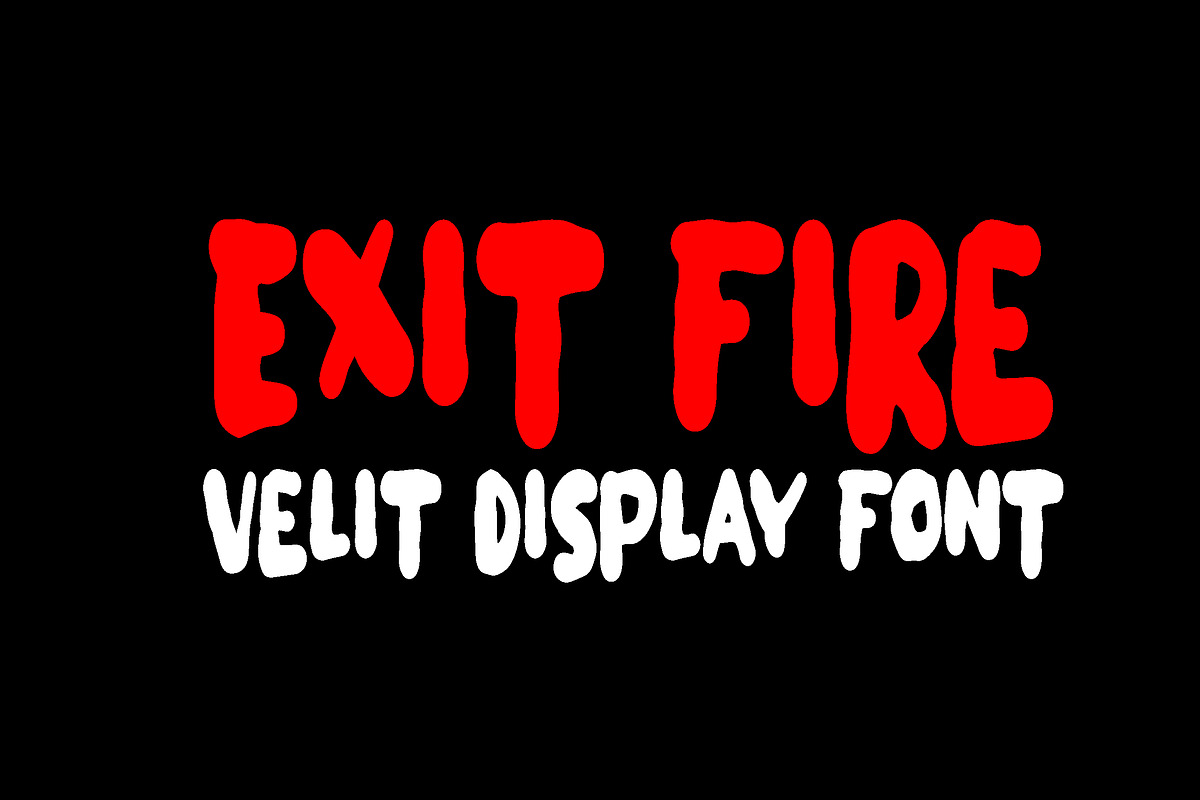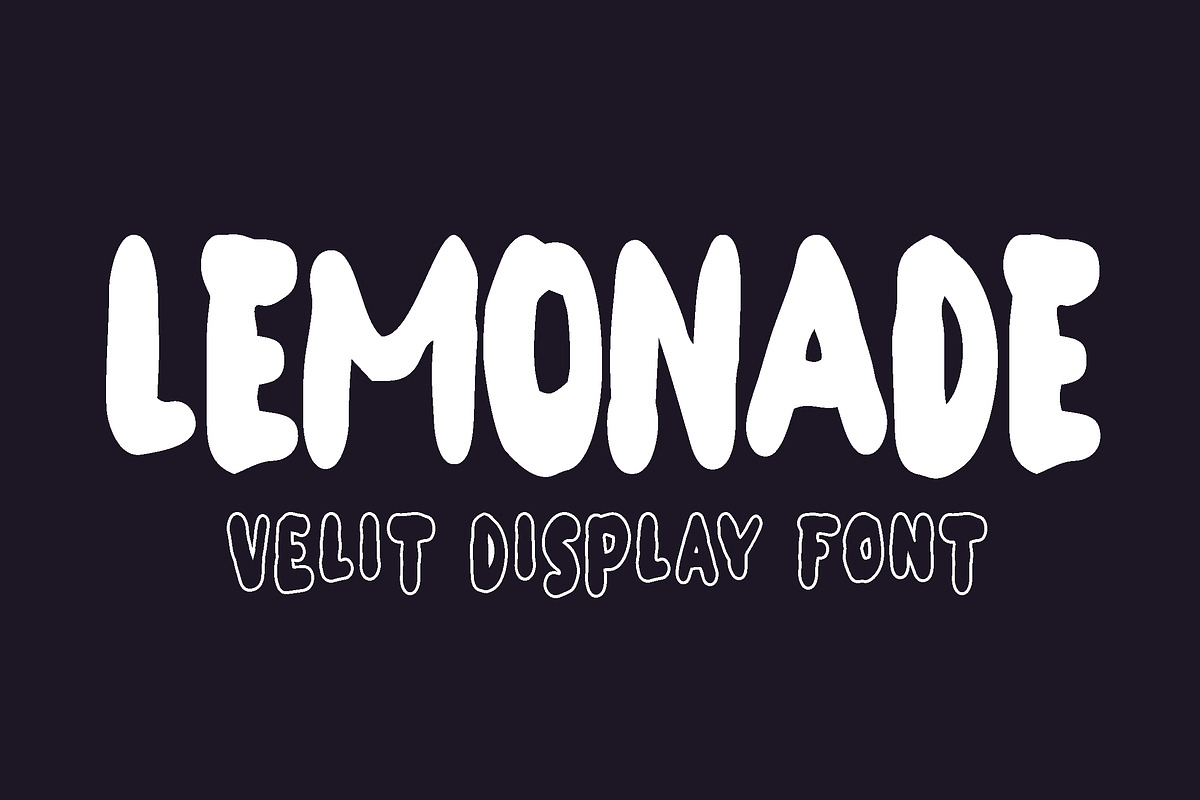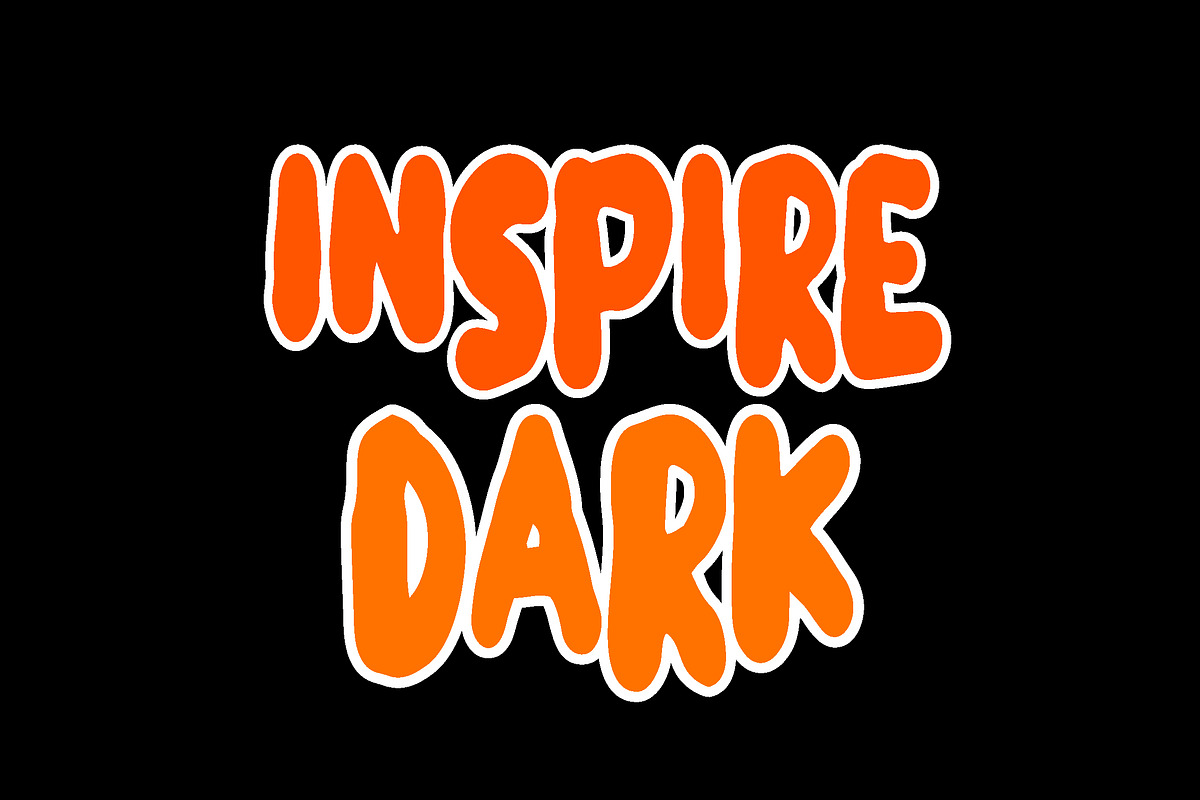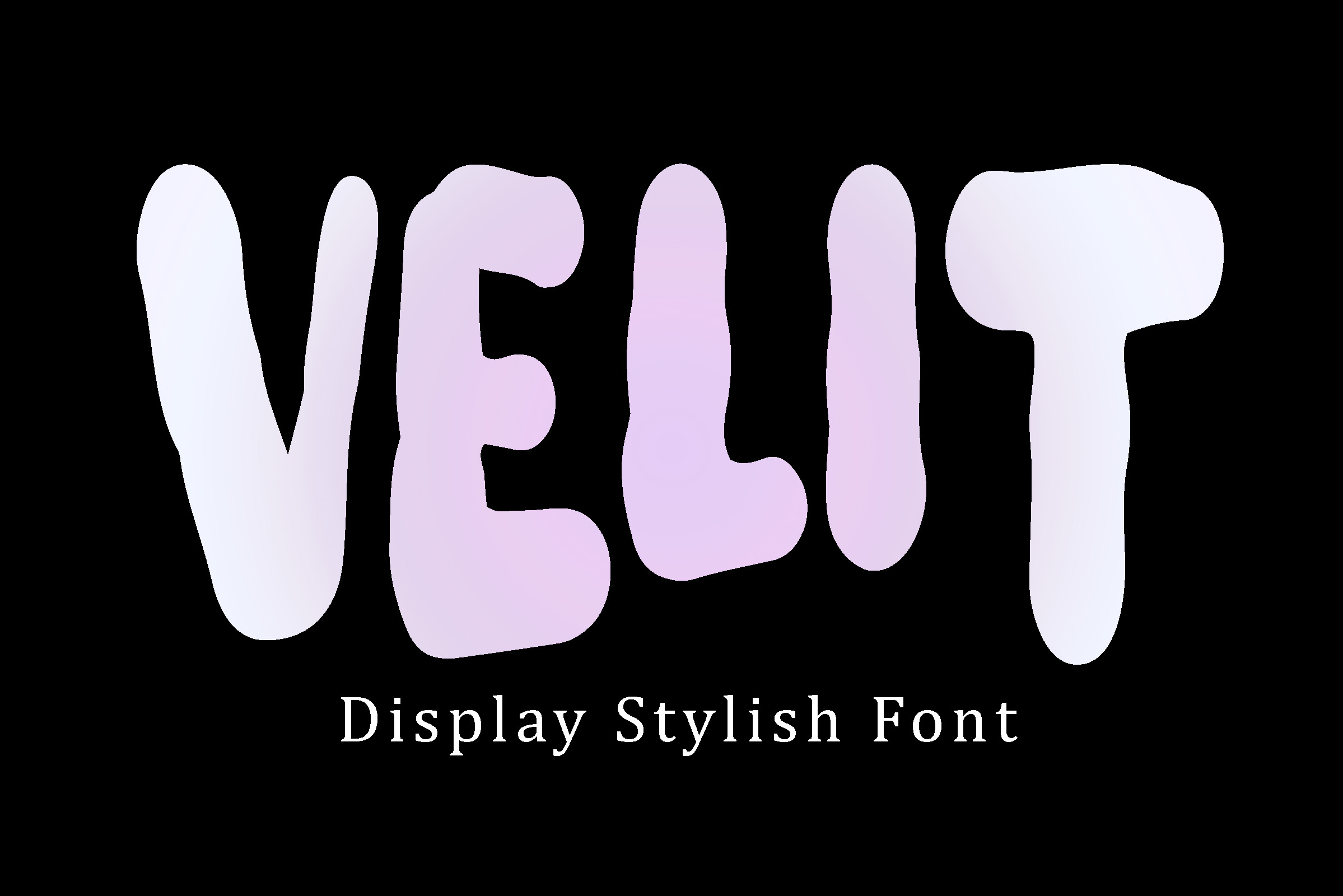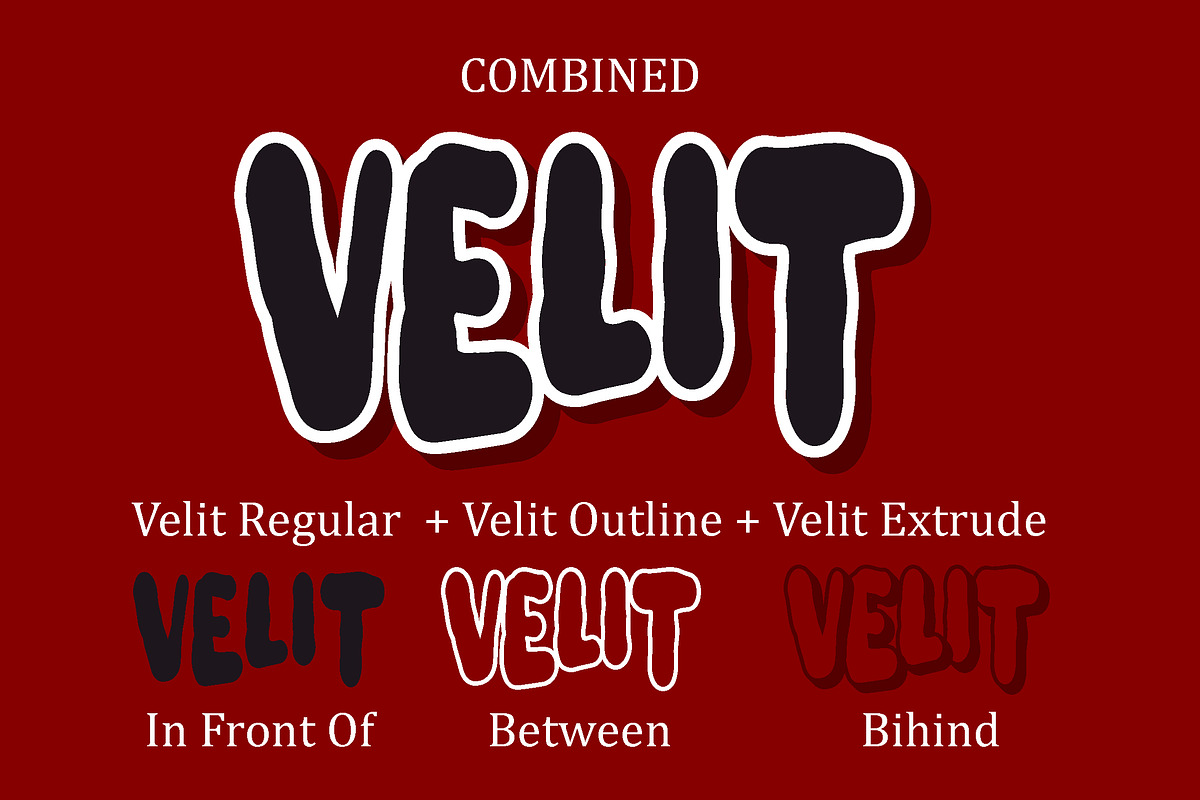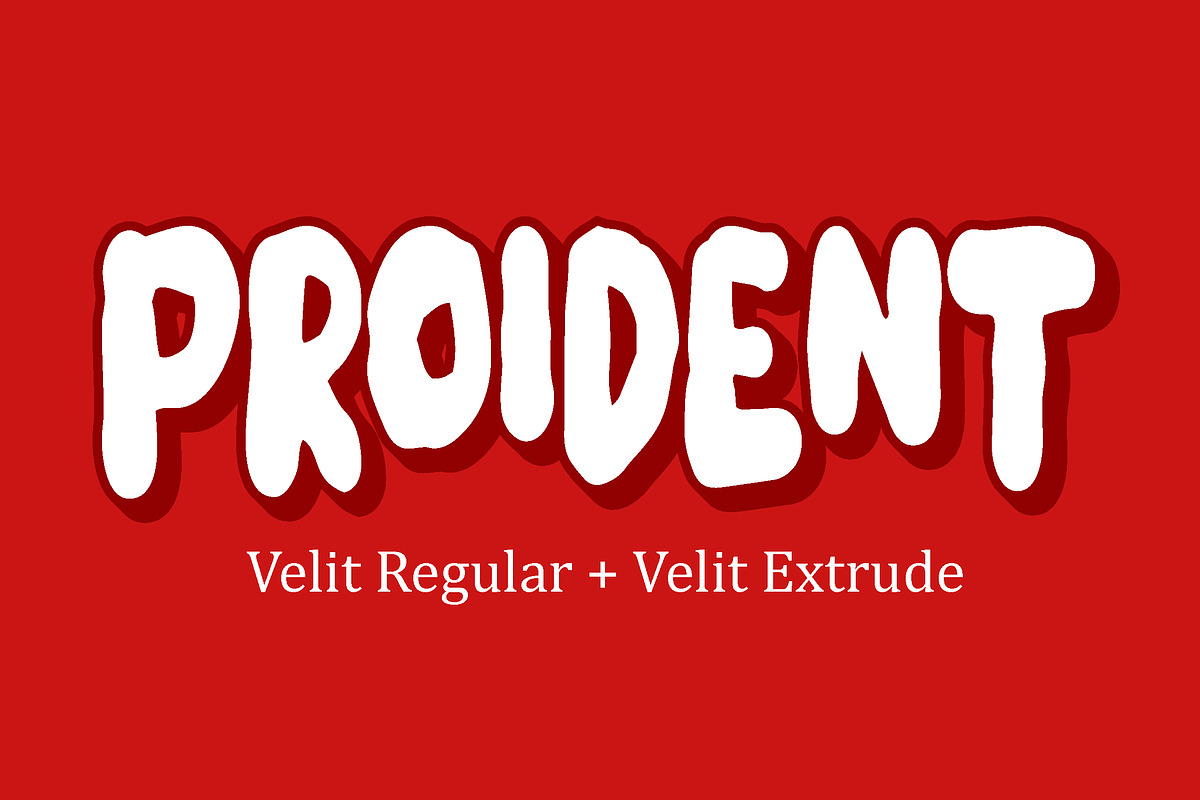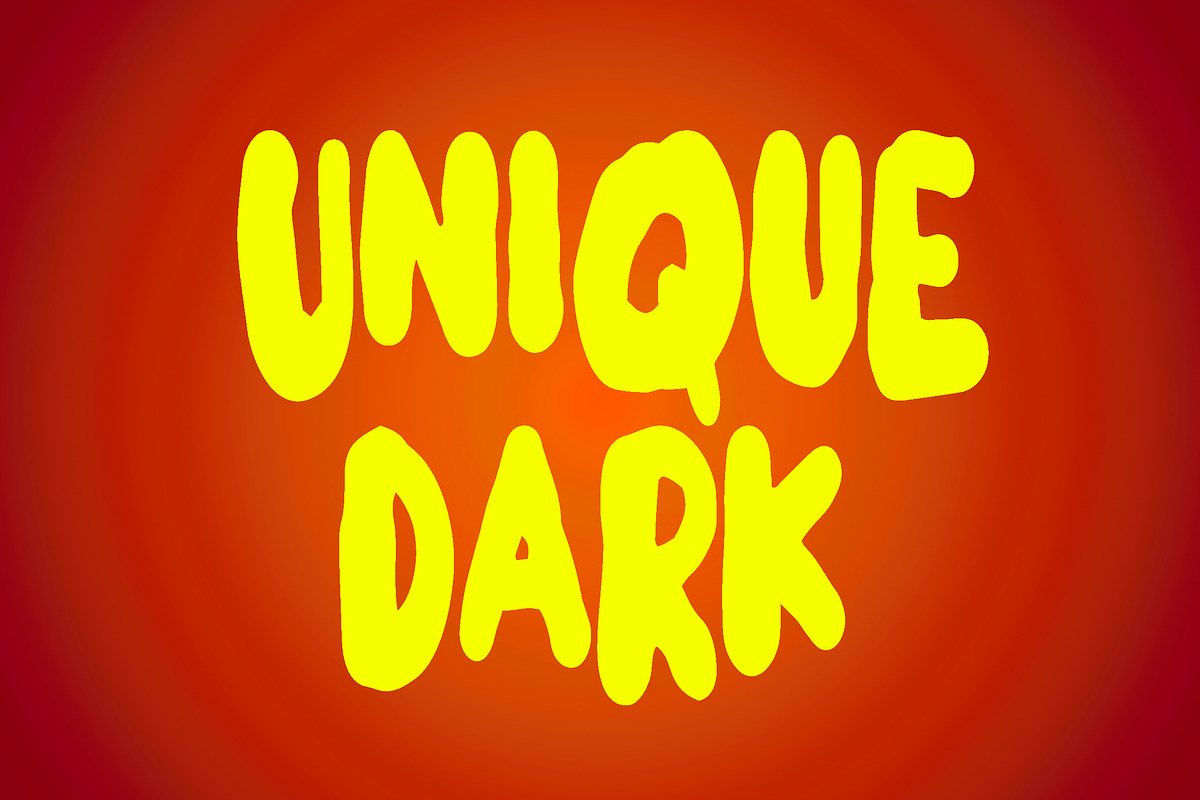
Velit - Display font
Velit a display stylish font, an all caps cutout-style marker font. Lowercase letters are the alternative to Uppercase. Playful Scary Font, Perfect for Halloween designs, logos, branding, packaging, apparel, cards, posters, quotes, social media posts, stickers and much more. This font is PUA encoded which means you can access all of the glyphs and alternates with ease! (please type the preview to see if I have what you need!)